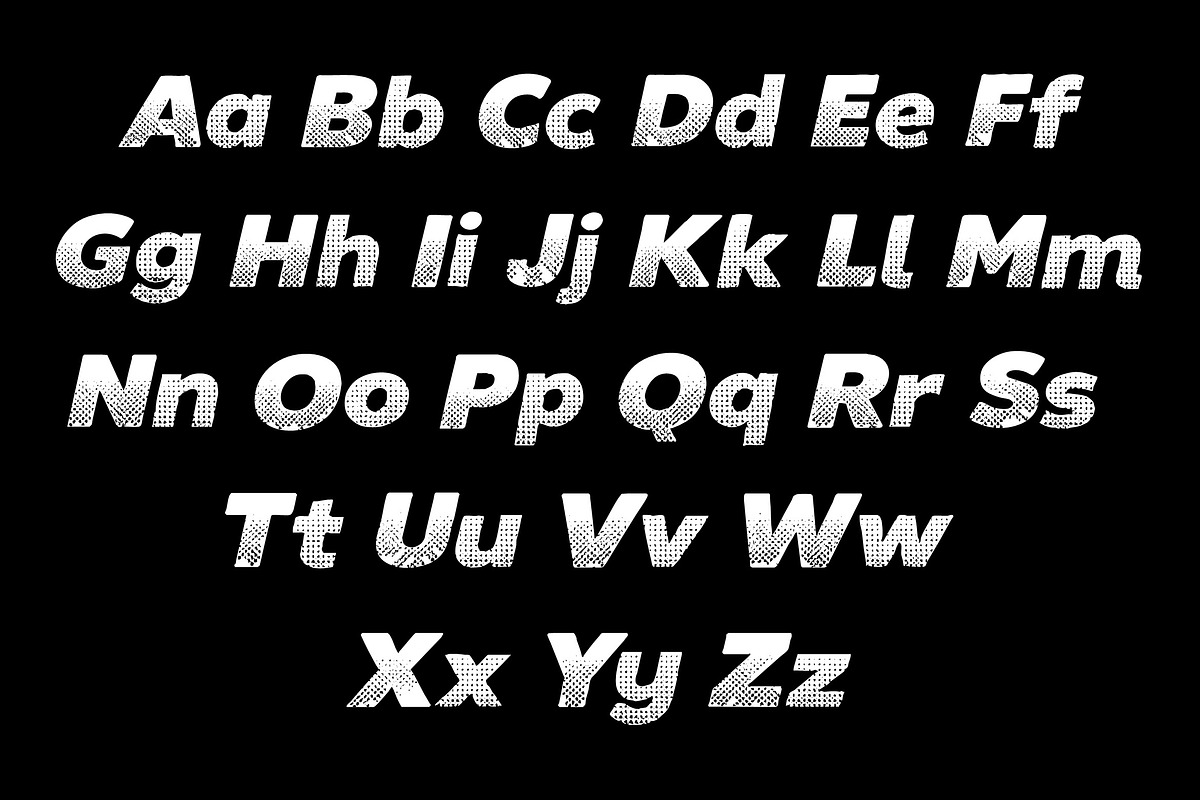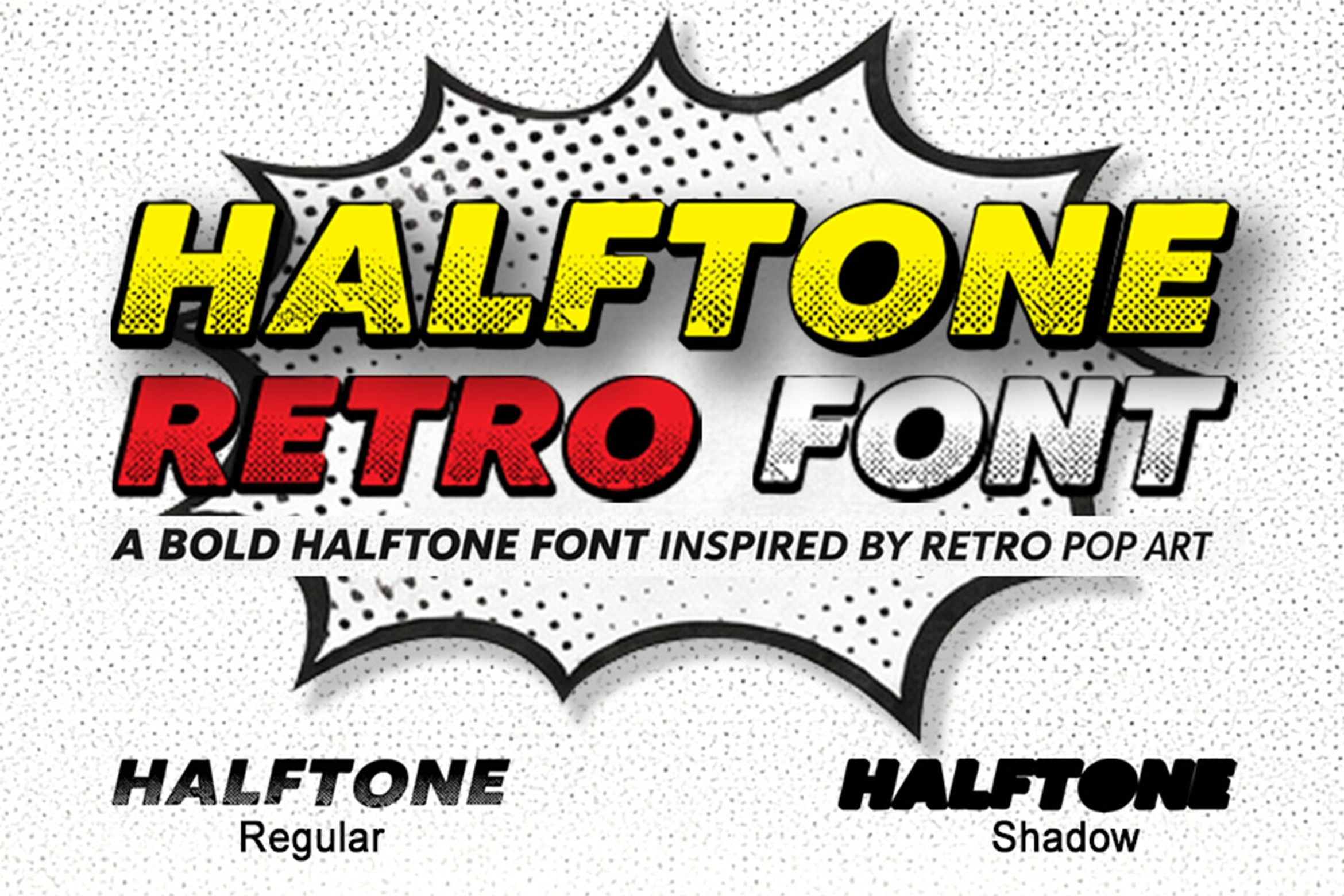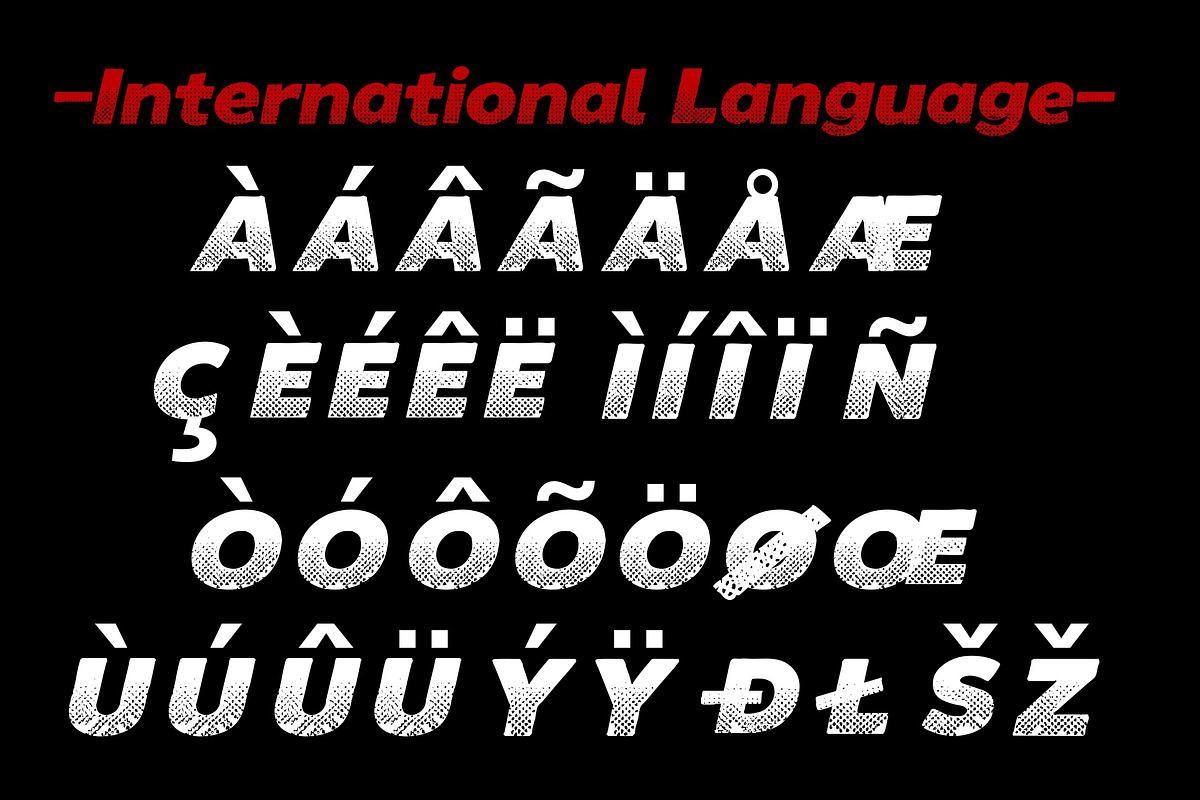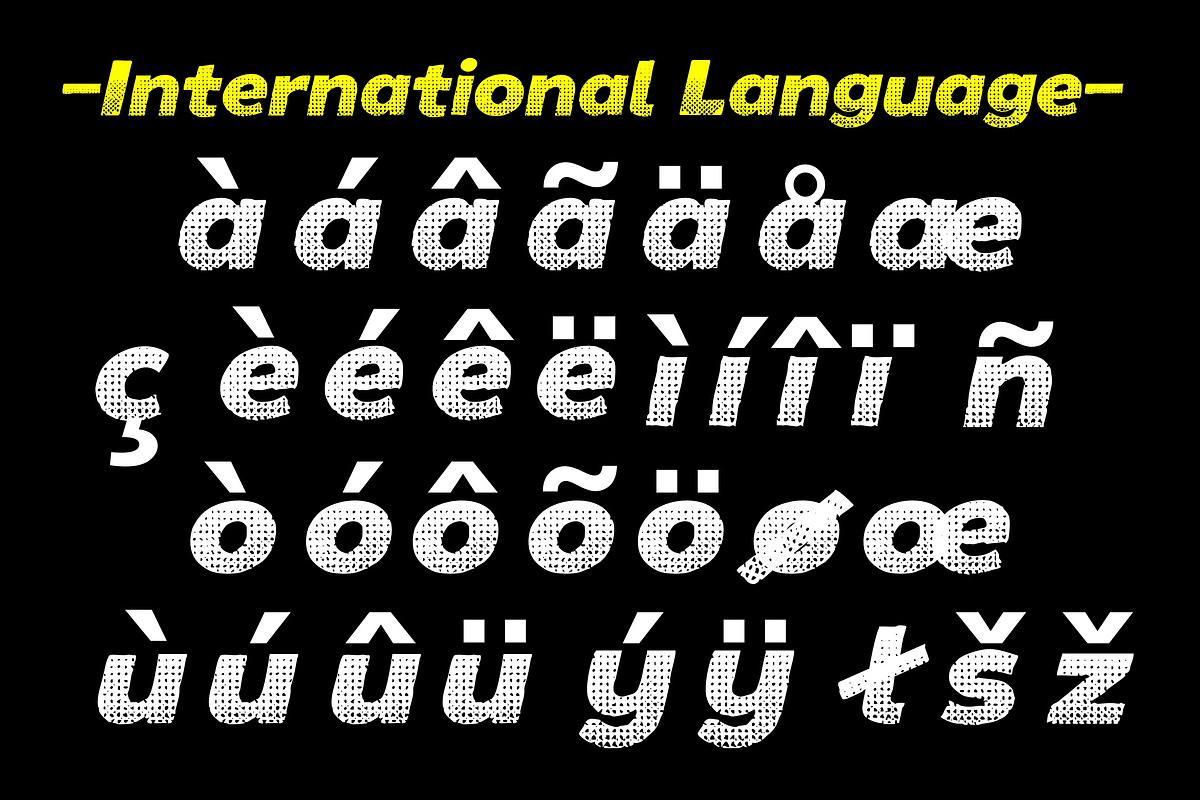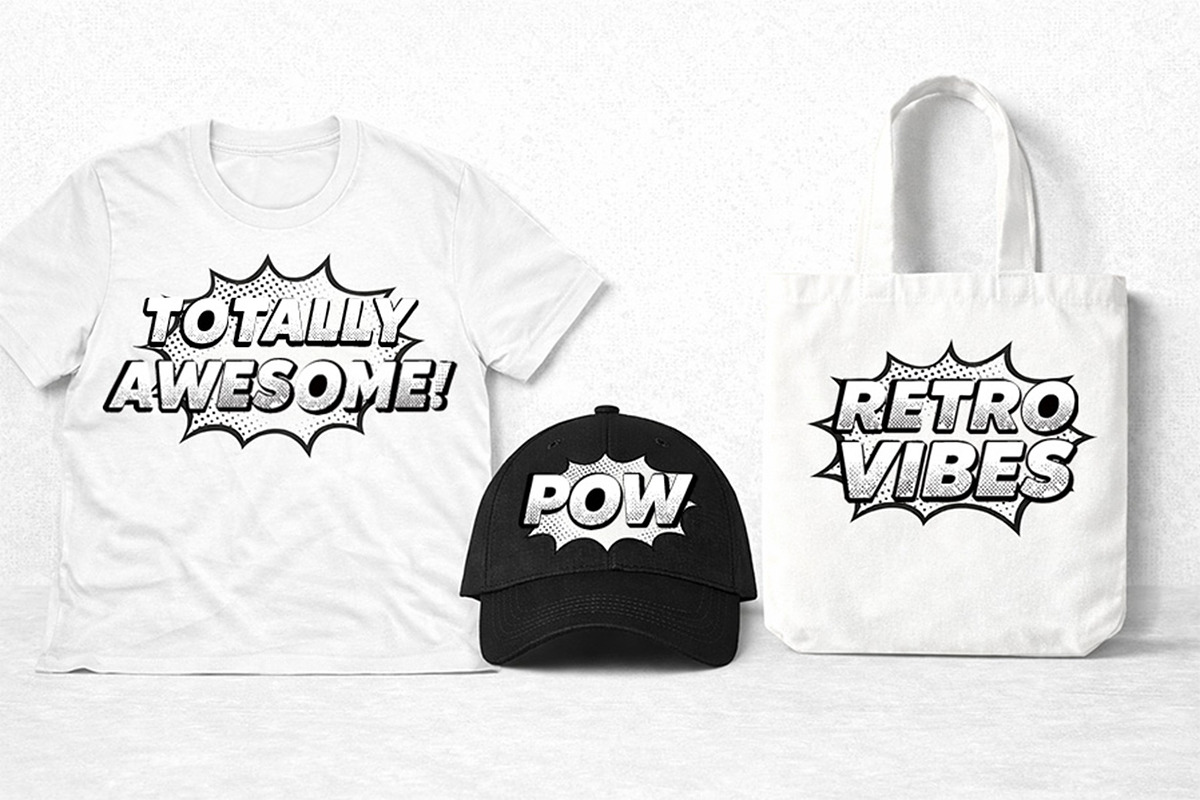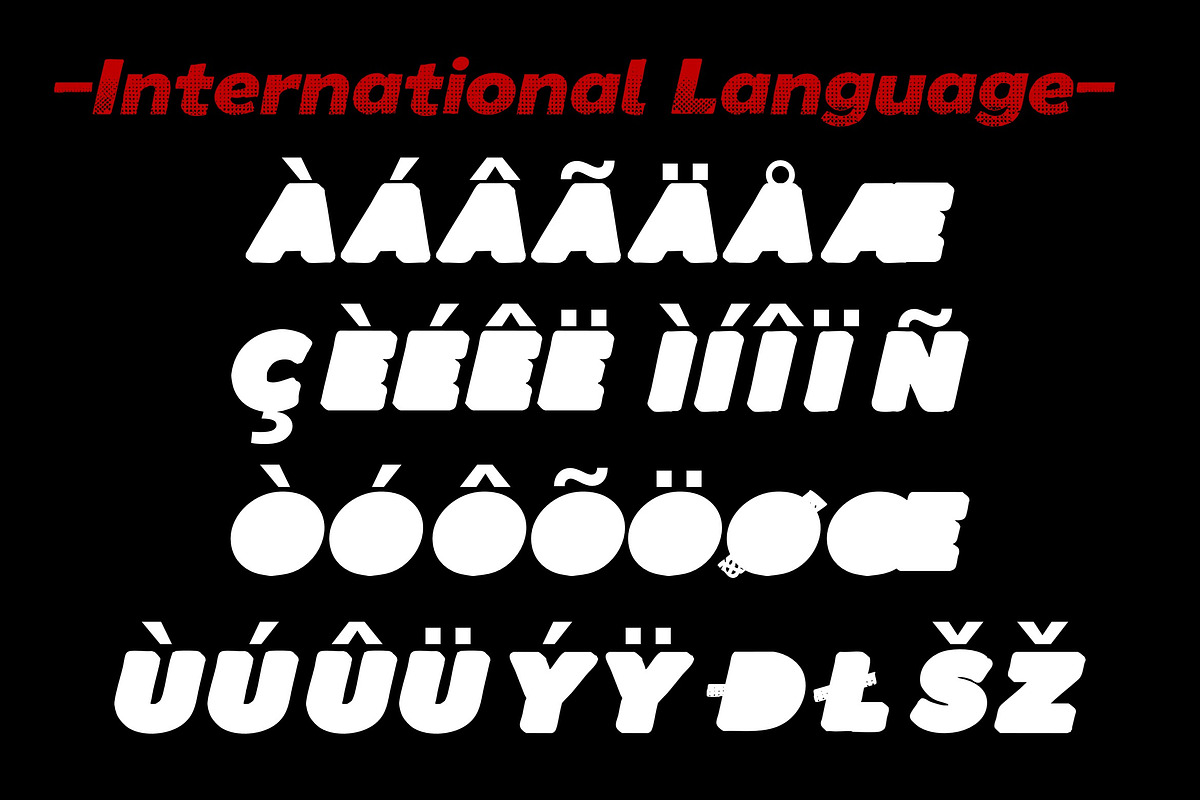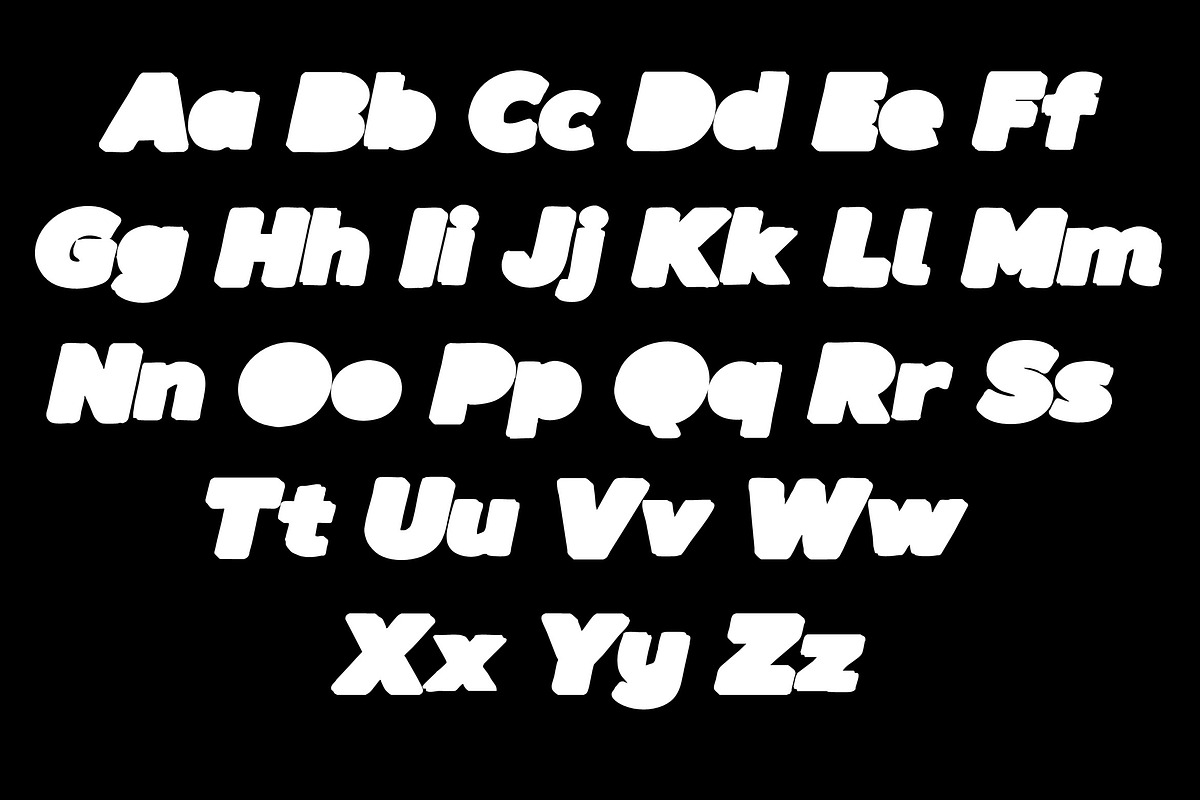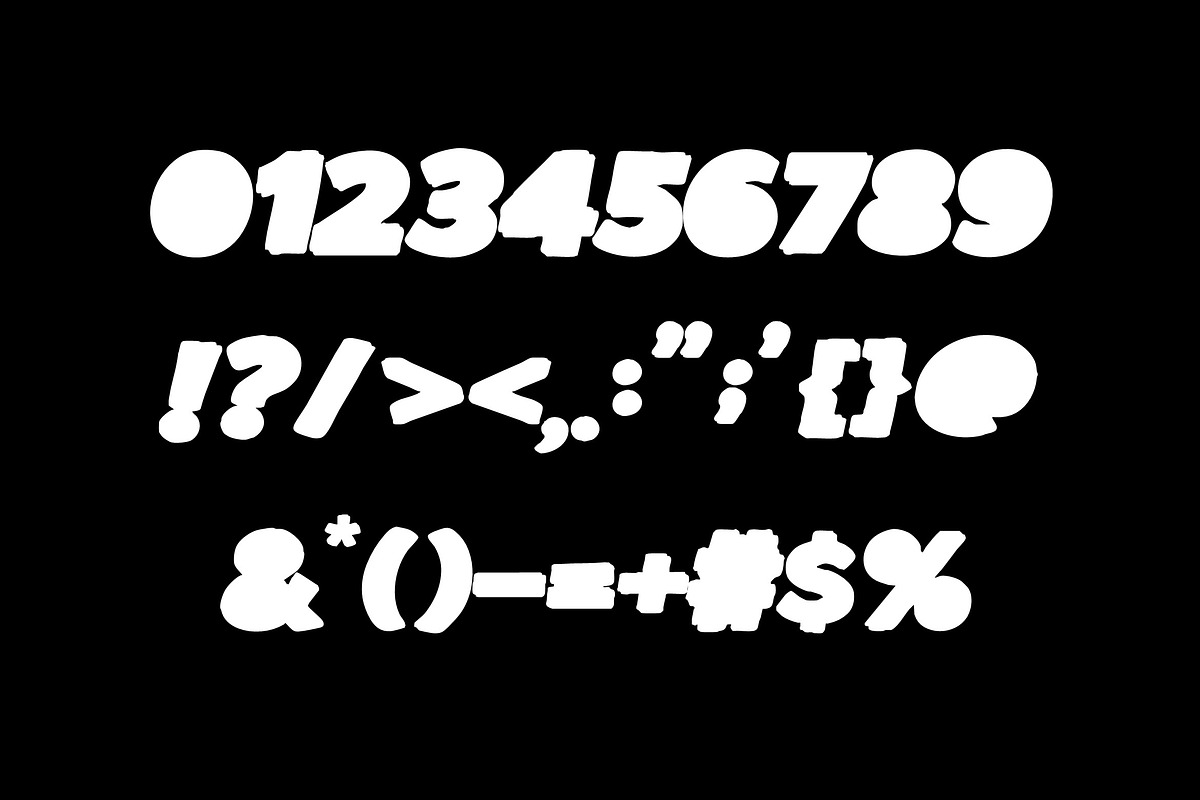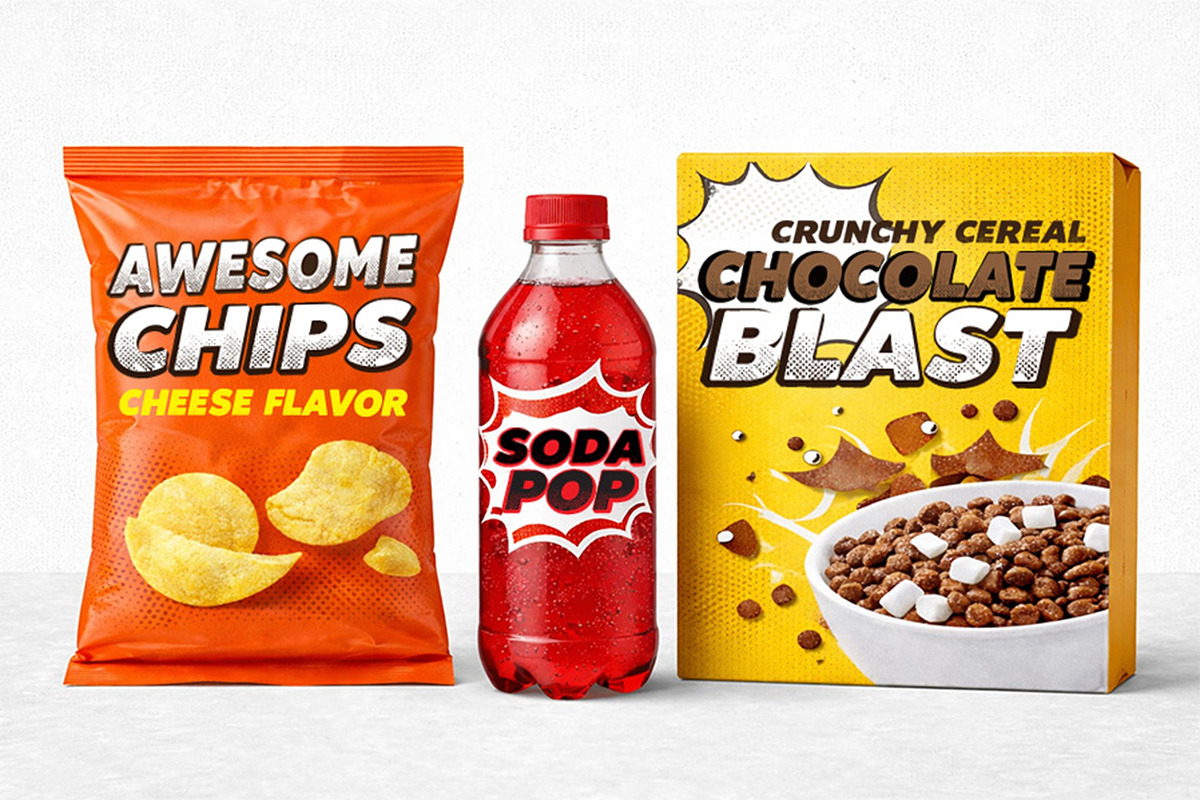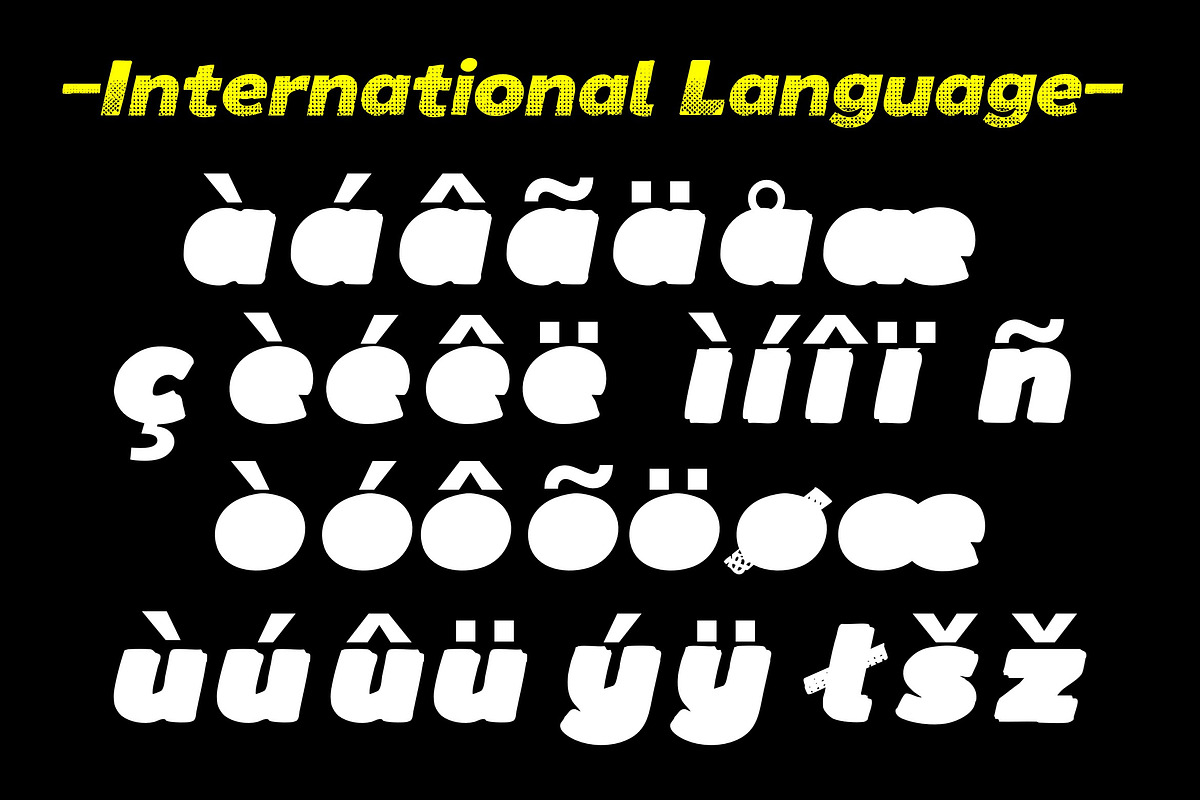
Halftone Retro Font
Halftone Retro Font is a bold black-and-white halftone display font inspired by retro pop art and comic-style typography. Featuring clean outlines and detailed dot textures, this font is perfect for posters, branding, merchandise, social media graphics, and creative projects that need strong visual impact.
- 223 Glyps included Uppercase, Lowercase, Numeral, Punctuation, Multilingual international Language.